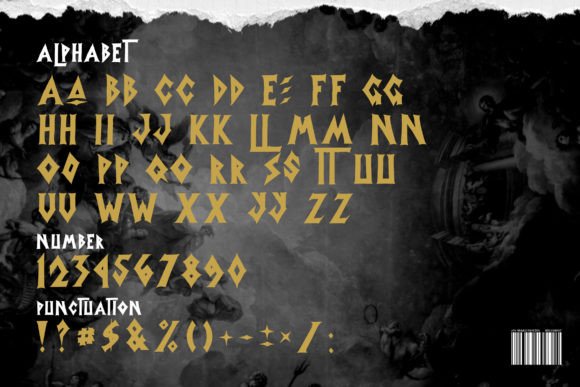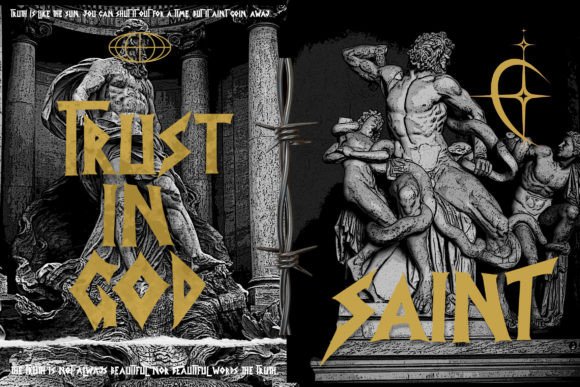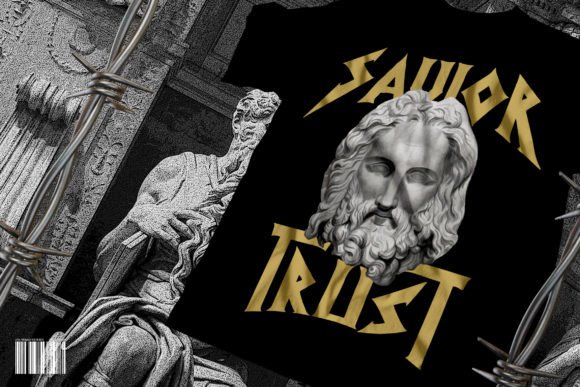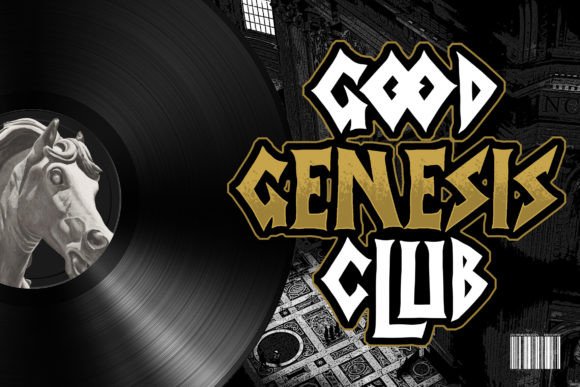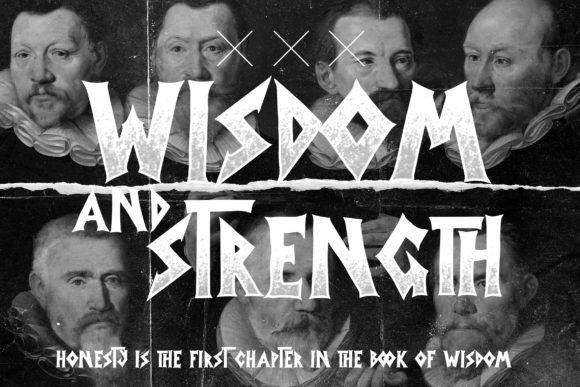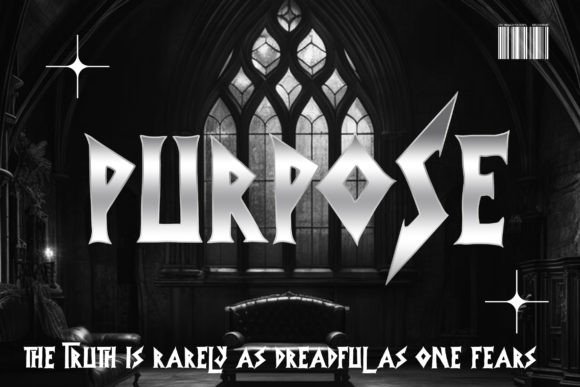
The Ultimate Guide to Chimers Font: A Y2K-Inspired Blackletter Masterpiece
I’ll never forget the time I was working on a design project for a client who wanted a bold, edgy font to match their brand’s personality. I scoured the internet for hours, but nothing seemed quite right. That was until I stumbled upon Chimers Font – a cool, eye-catching display font that mixes old-school blackletter style with modern graffiti vibes. In this article, I’ll share my experience with Chimers, its features, and how to make the most of it in your designs.
An Honest Review of Chimers Font
So, what makes Chimers Font so special? Here are some things I love:
- ✨ Unique Y2K-inspired design: Chimers Font has a distinctive look that’s perfect for making bold statements.
- ✅ Highly legible: Despite its edgy design, Chimers Font is surprisingly easy to read, even in larger blocks of text.
- 🔥 Versatile: This font can be used for a wide range of projects, from posters and flyers to social media graphics and logos.
Of course, no font is perfect, and Chimers has a few small quirks:
- 🤔 Limited use in body text: While Chimers is great for headlines and titles, it’s not ideal for longer blocks of text.
- ⚠️ Some glyphs may require manual adjustment: Depending on your design, you may need to tweak certain glyphs to get the perfect look.
The Backstory Behind Chimers Font
Chimers Font was designed with the goal of creating a unique, eye-catching display font that blends old-school blackletter style with modern graffiti vibes. The designer drew inspiration from the Y2K era, combining bold lines and edgy shapes to create a font that’s both nostalgic and fresh.
| Font Name | Chimers Font |
| Author | Dansdesign |
| What is Chimers Font best used for? | Chimers Font is perfect for making bold, stylish statements in headlines, titles, and short blocks of text. |
| Is Chimers Font easy to read? | Yes, despite its edgy design, Chimers Font is surprisingly easy to read, even in larger blocks of text. |